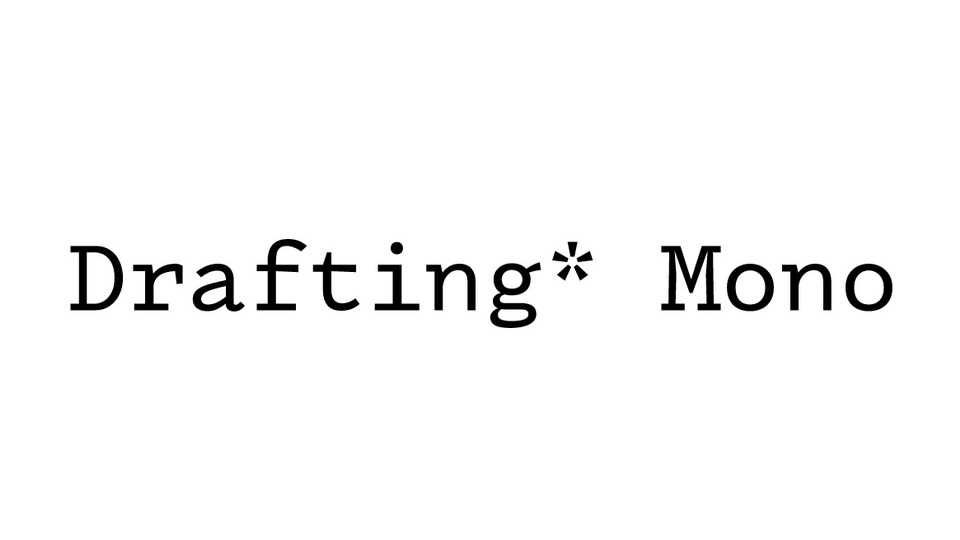
Download Drafting* Mono typeface, an original monospaced font family inspired by typewriters. Drafting* Mono aims to capture this “still-in-the-works” spirit, with something neutral and timeless that is also personal and anachronistic.